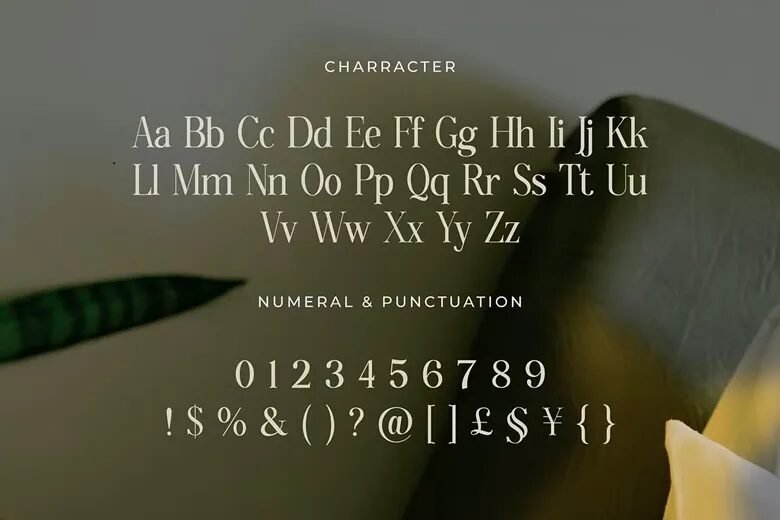
Gradine is a serif typeface and a luxury one that incorporates all elements of aesthetic beauty, elegance, and elegance of high society. It is created to have a high contrast stroke and elegant curves where every character precisely looks classy and exclusive.
Gradine will fit perfectly into high-end packaging, branding with an upscale feel, editorials and invitations; it will be the luxury element of any design.